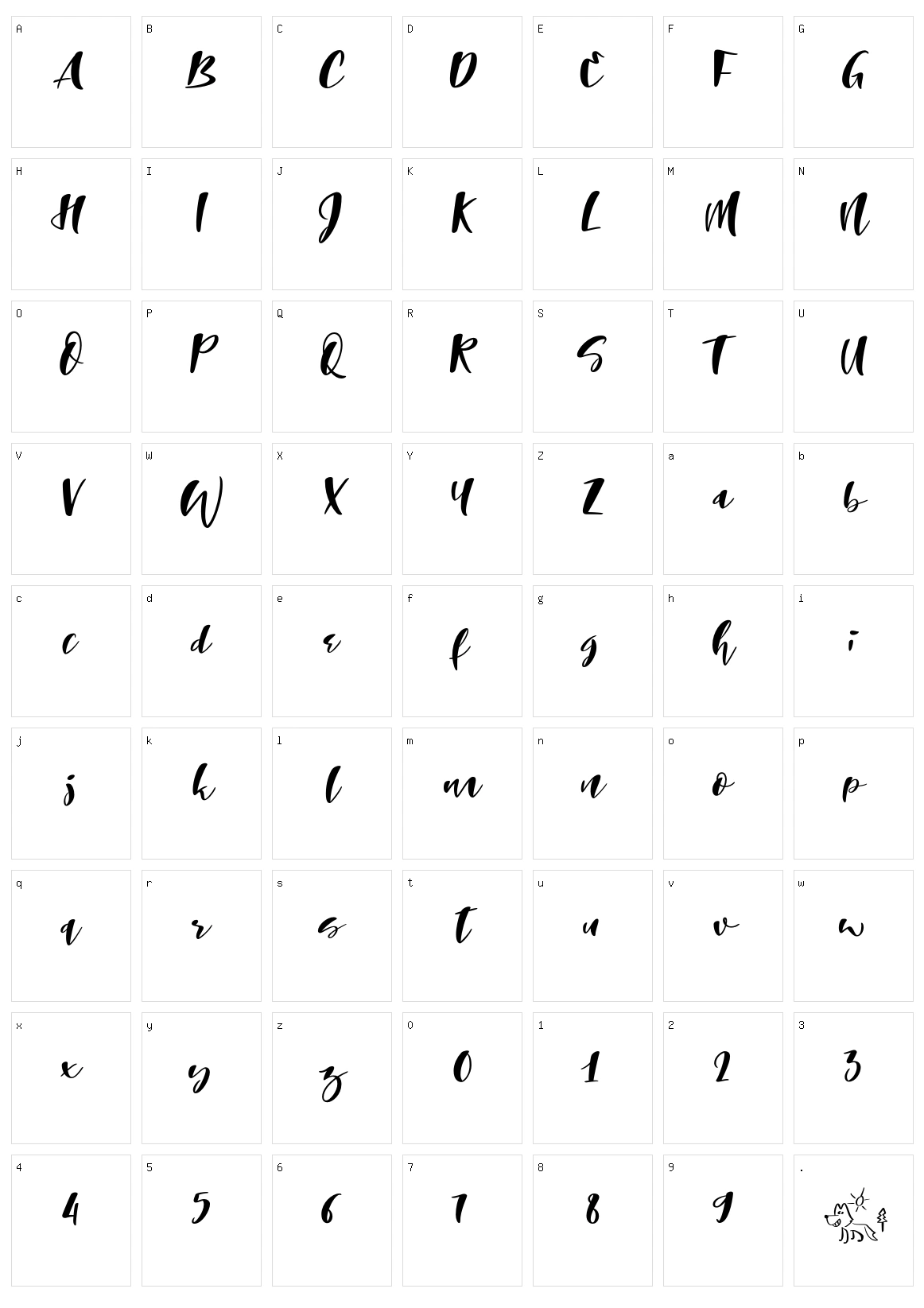
ÿþT H E L A U G H I N G W O L F i s a b r u s h / i P a d s c r i p t f o n t . C a r e f u l l y d e s i g n e d , c l e a n v e c t o r s i n G l y p h s A p p . Y o u c a n c r e a t e b e a u t i f u l h a n d - m a d e t y p o g r a p h y w i t h i t s b o u n c y , o r g a n i c f l o w .
T h i s i s t h e D E M O v e r s i o n o f t h e f o n t , t h e L a u g h i n g W o l f d o o d l e i s i n t h e p l a c e o f t h e p e r i o d g l y p h .
T h e f u l l f o n t c o n t a i n s a l l W e s t e r n a n d E a s t e r n E u r o p e a n l a n g i u a g e a c c e n t s a n d c h a r a c t e r s , a n d a f e w m o r e W o l f d o o d l e s .